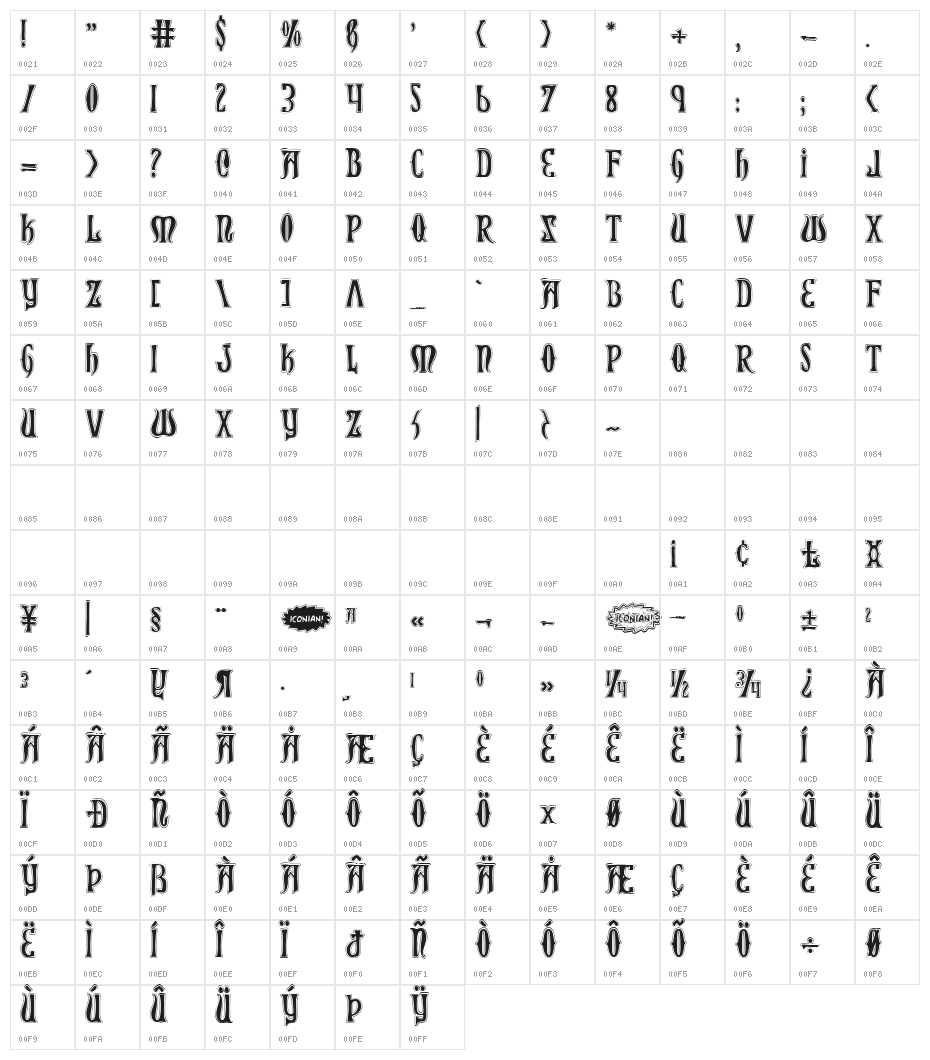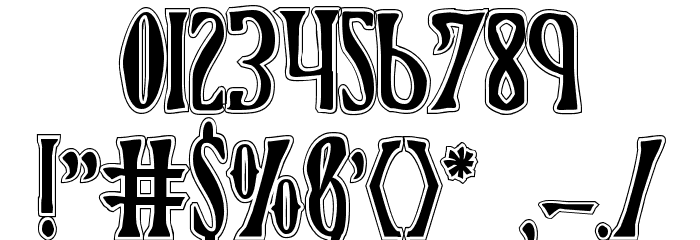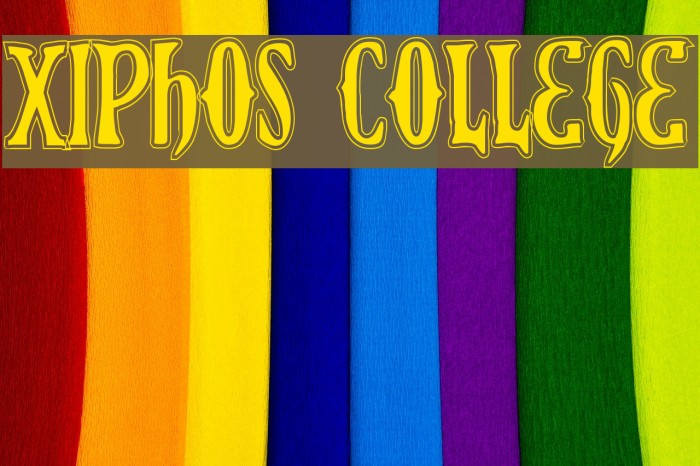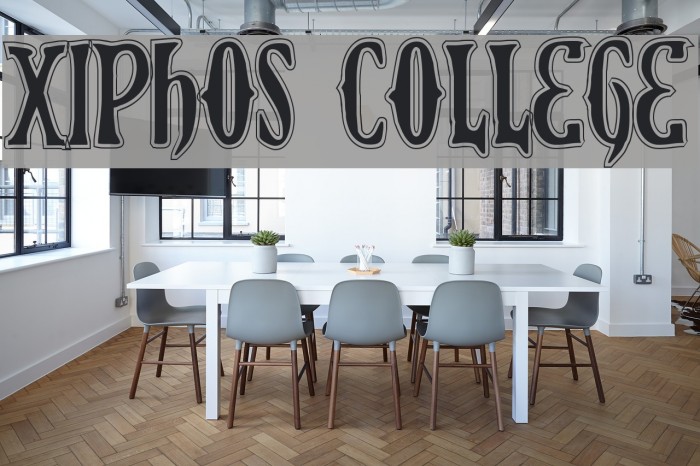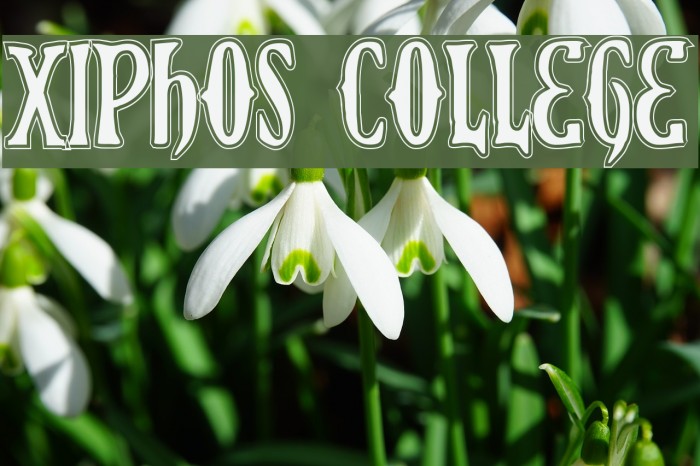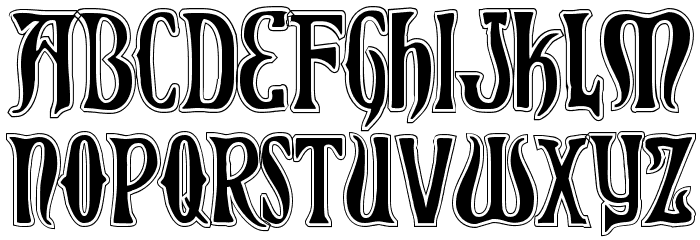
Xiphos College Font
Xiphos College Description
This font features a bold, decorative style with a strong presence and unique flair. The characters are outlined, giving them a three-dimensional effect that enhances their visual impact. The strokes are thick and consistent, with a medium contrast between the thick and thin parts. The overall design is reminiscent of vintage or retro styles, making it suitable for projects that require a touch of nostalgia or boldness. The uppercase and lowercase letters maintain a consistent style, and the numbers and special characters are equally distinctive, ensuring a cohesive look across all text elements.
| Overall Style | Vintage |
| Proposed Projects | Ideal for posters, logos, headlines, and any design that requires a bold, eye-catching typeface. |